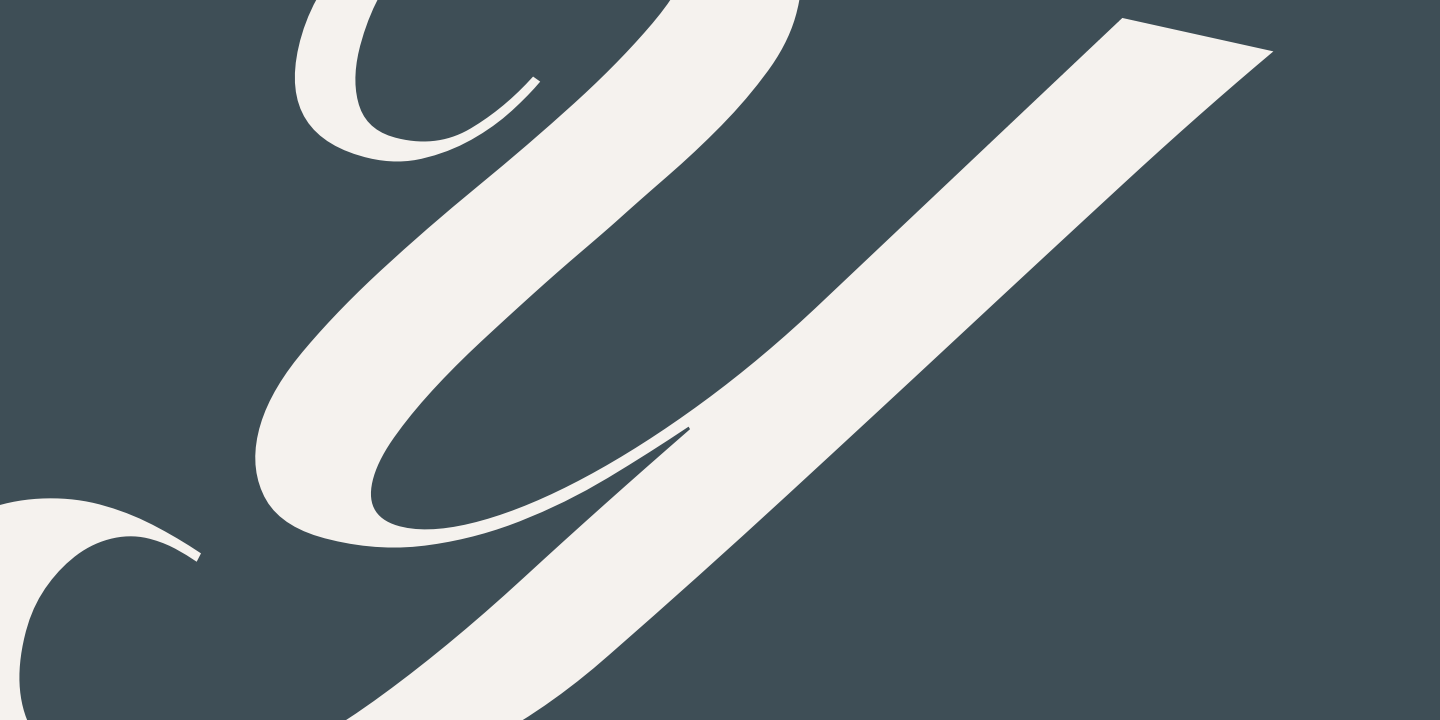
The Snell Roundhand Font excels in various design applications including elegant wedding invitations, formal certificate design, luxury brand communications, classical music program covers, prestigious award documents, upscale restaurant menus, historical society materials, traditional calligraphy projects, refined stationery design, and distinguished formal communications that demand authentic penmanship elegance and timeless sophistication.
What makes the Snell Roundhand Font exciting is its faithful recreation of 18th-century English roundhand calligraphy that embodies the pinnacle of formal penmanship artistry through flowing, graceful letterforms inspired by master calligrapher Charles Snell's legendary writing style. This typeface captures the essence of aristocratic elegance and scholarly refinement through meticulously crafted characters that suggest the fluid motion of a skilled calligrapher's pen creating beautiful, legible script. The font's classical personality makes it perfect for formal occasions and prestigious communications requiring typography that honors traditional penmanship while conveying dignity, education, and refined taste.
The Snell Roundhand Font family typically includes regular and bold weights with authentic calligraphic flourishes, featuring traditional ligatures, swash alternatives, and ornamental capitals that enhance the formal script aesthetic. These family options often include period-appropriate punctuation, classical numerals, and decorative elements that maintain the historical accuracy while providing designers with comprehensive tools for creating authentic formal calligraphy that honors traditional penmanship standards.
Formal event planners and prestigious institutions consistently choose Snell Roundhand Font Free Download for projects requiring typography that conveys formal elegance and classical education. This typeface delivers exceptional performance in ceremonial applications, luxury branding, and traditional communications where establishing dignity and honoring calligraphic heritage is essential for creating appropriate formal atmosphere. The font's historical authenticity makes it particularly valuable for academic and cultural institutions. Download Snell Roundhand Font Free Download today to access this distinguished typeface that transforms formal communications with its authentic calligraphic beauty and classical sophistication, creating compelling experiences that honor the finest traditions of English penmanship while maintaining contemporary relevance for prestigious applications.